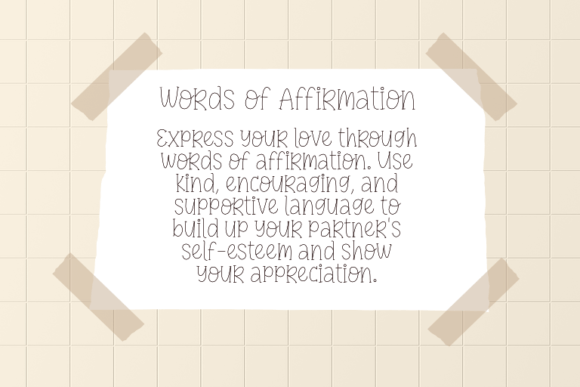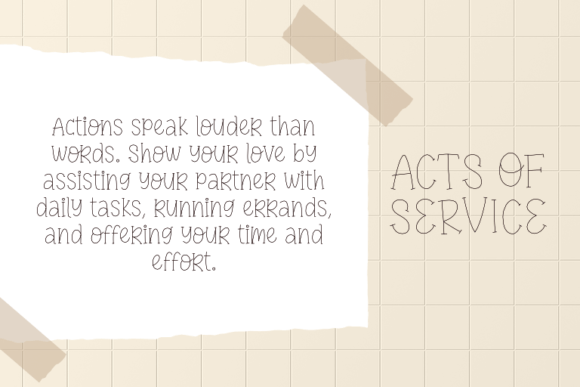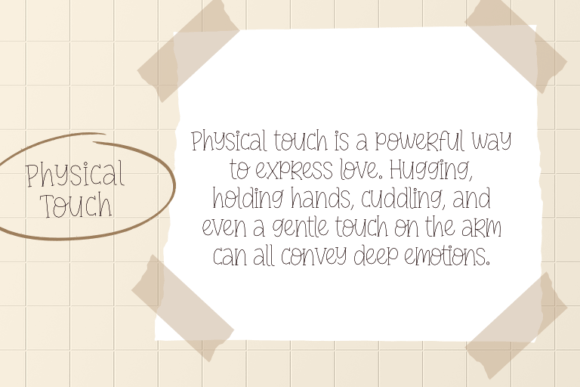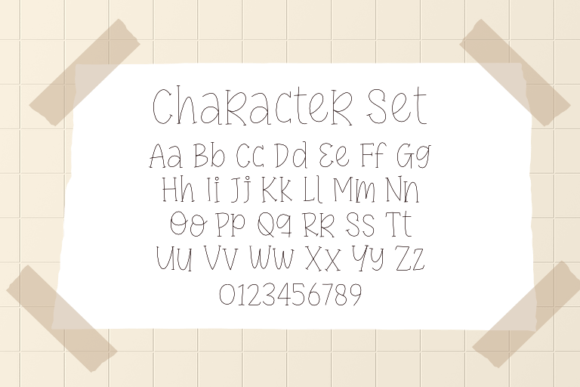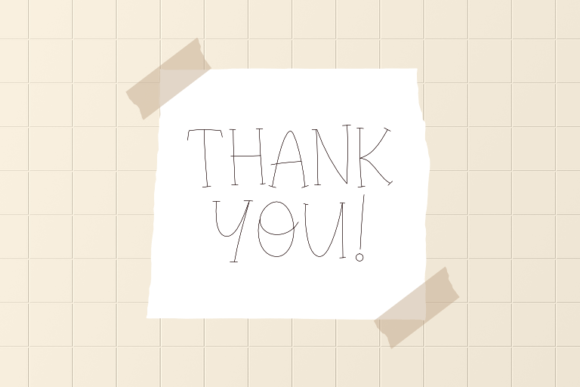
Introduction to Lovely Wives Font
Lovely Wives is a quirky and fun single-line font.
It will add an incredibly joyful touch to your designs Add this cute font to each of your creative ideas and notice how it makes them stand out.
Key Features of Lovely Wives Font
Why Choose Lovely Wives Font?
Lovely Wives Font offers exceptional quality and versatility, making it a valuable addition to your design toolkit. Whether you’re creating for personal projects or commercial use, Lovely Wives Font delivers professional results.